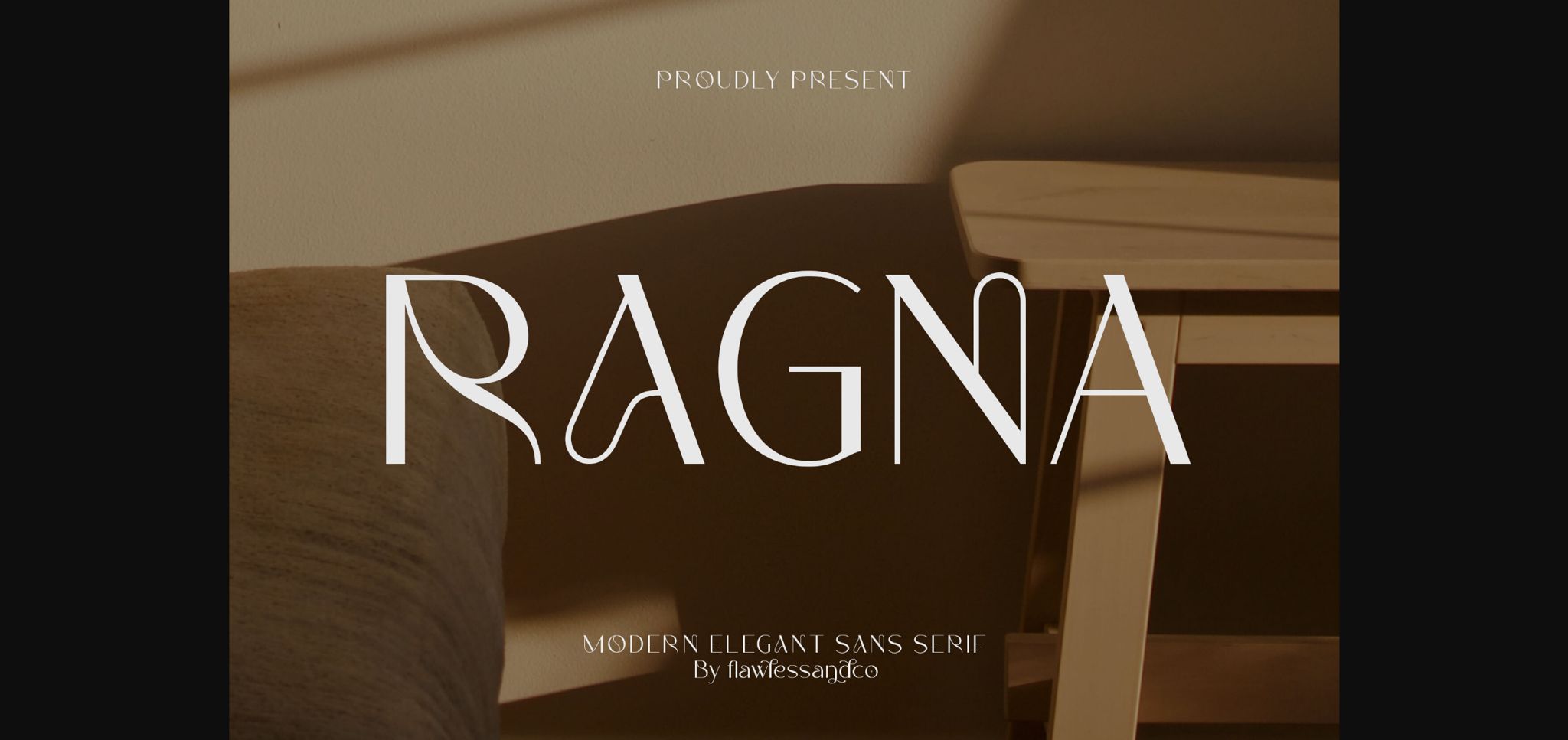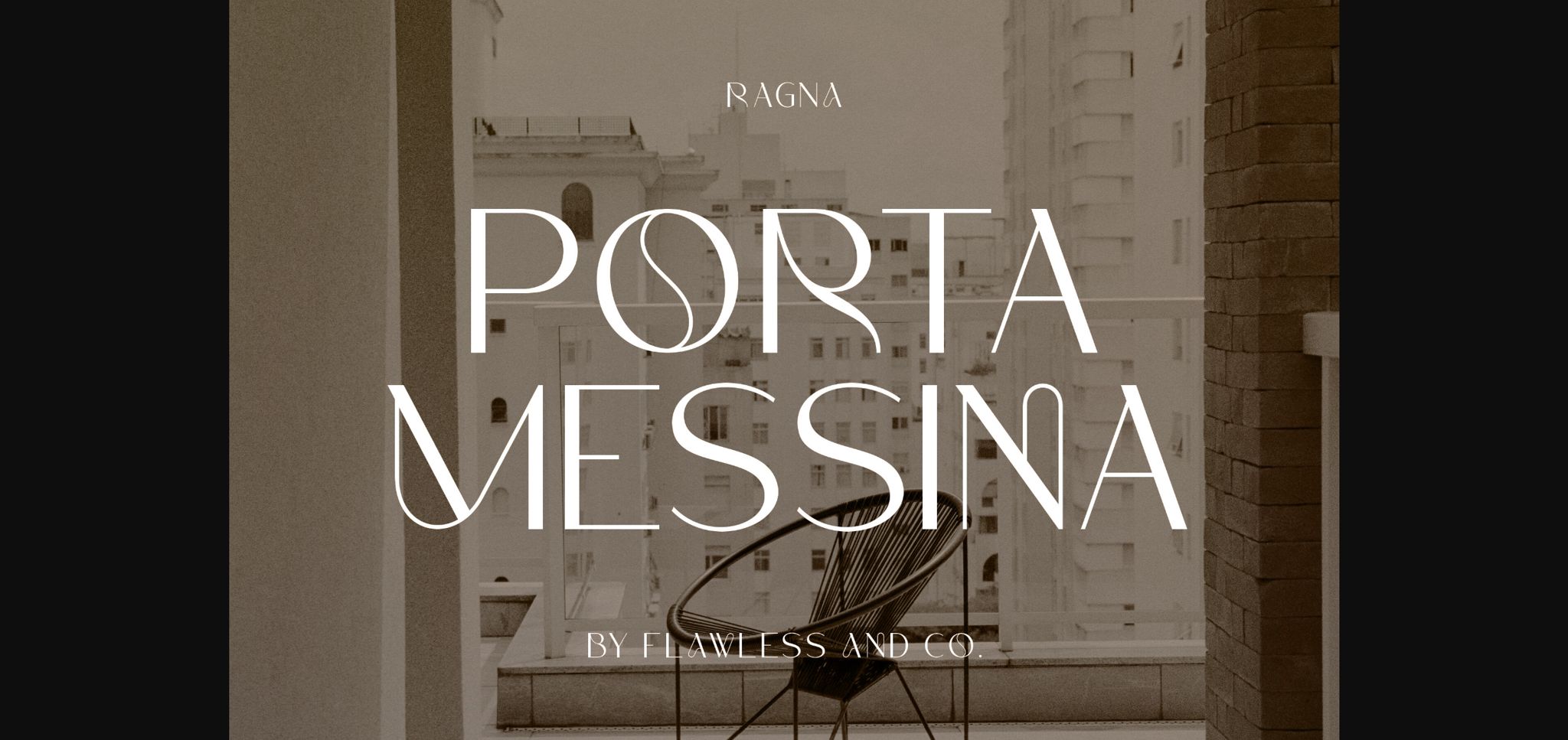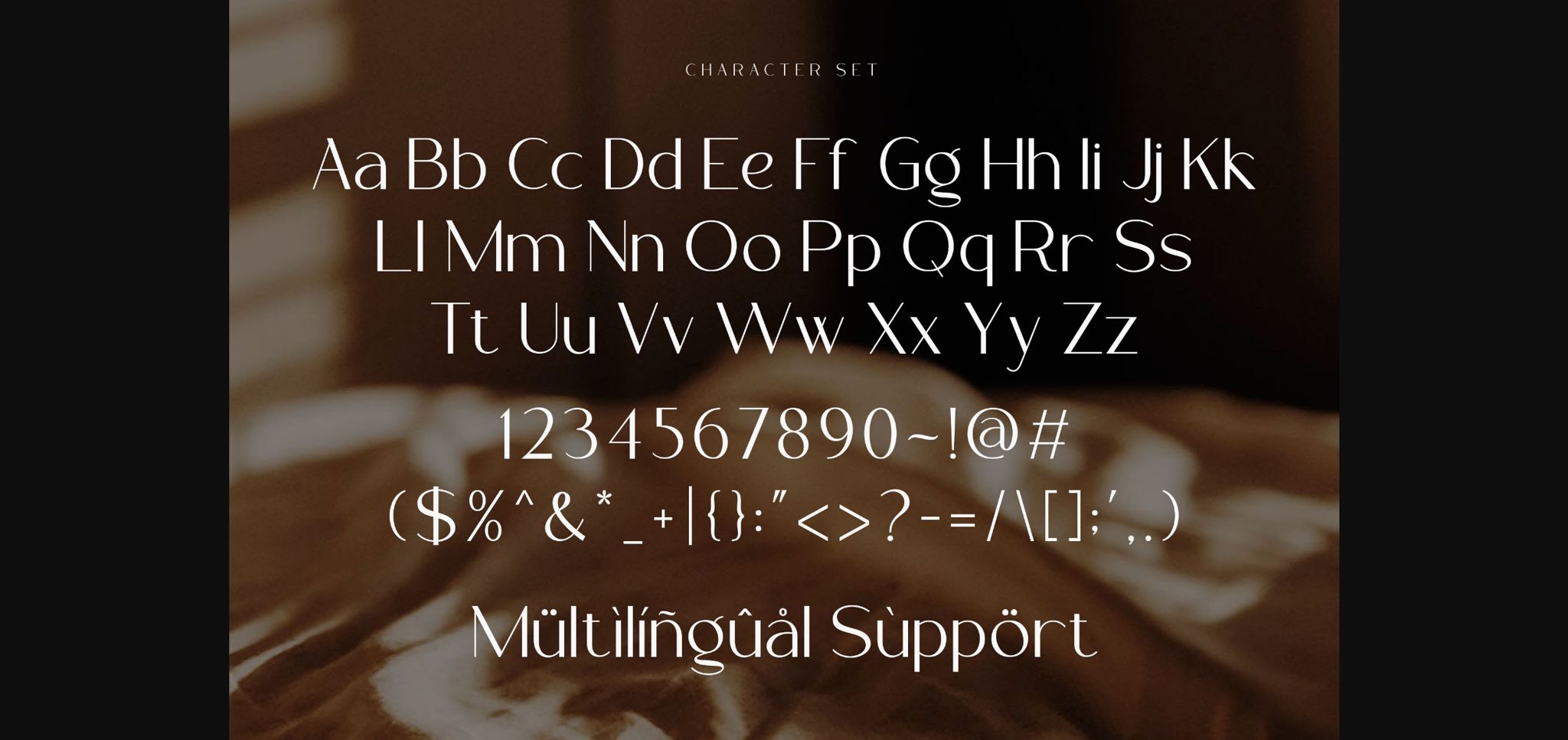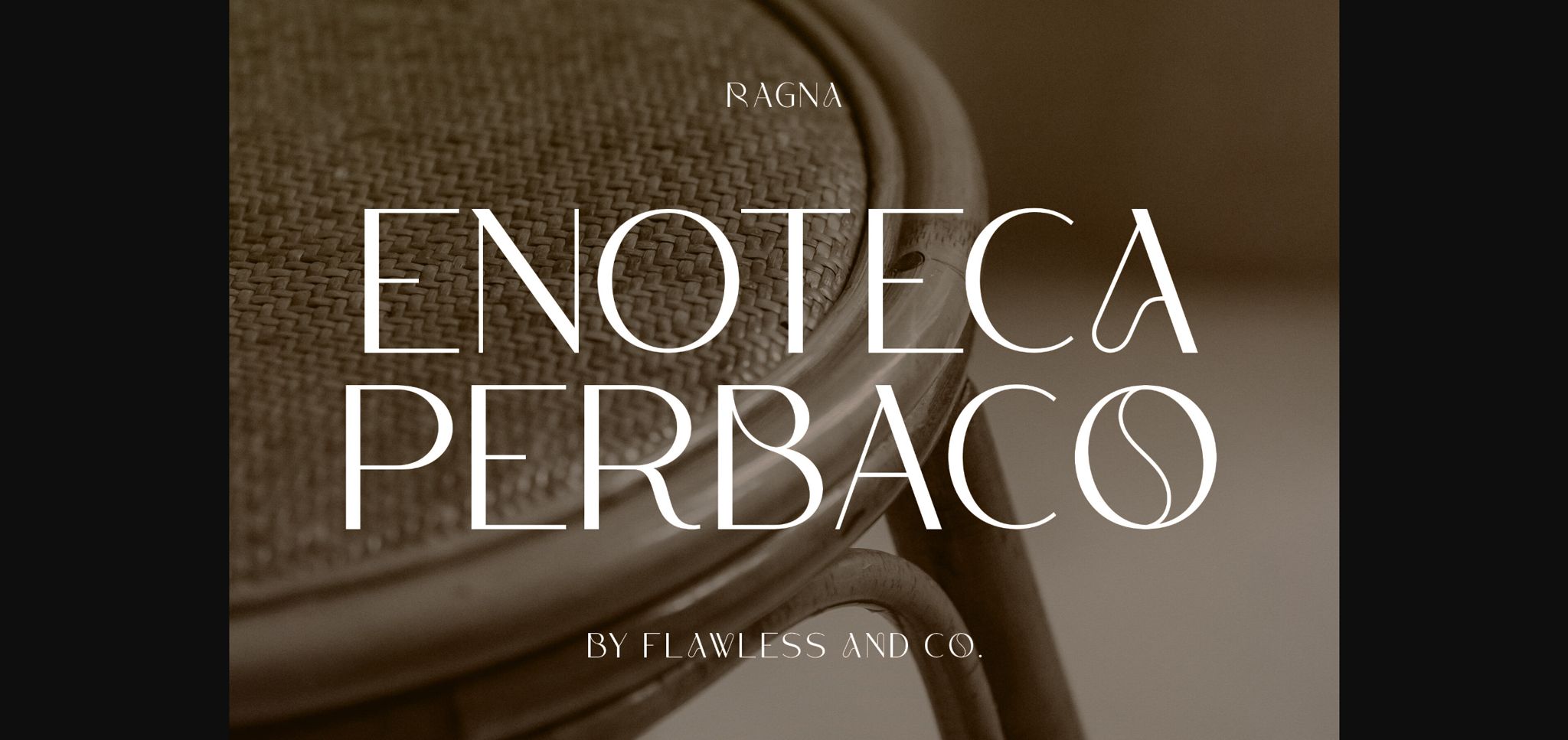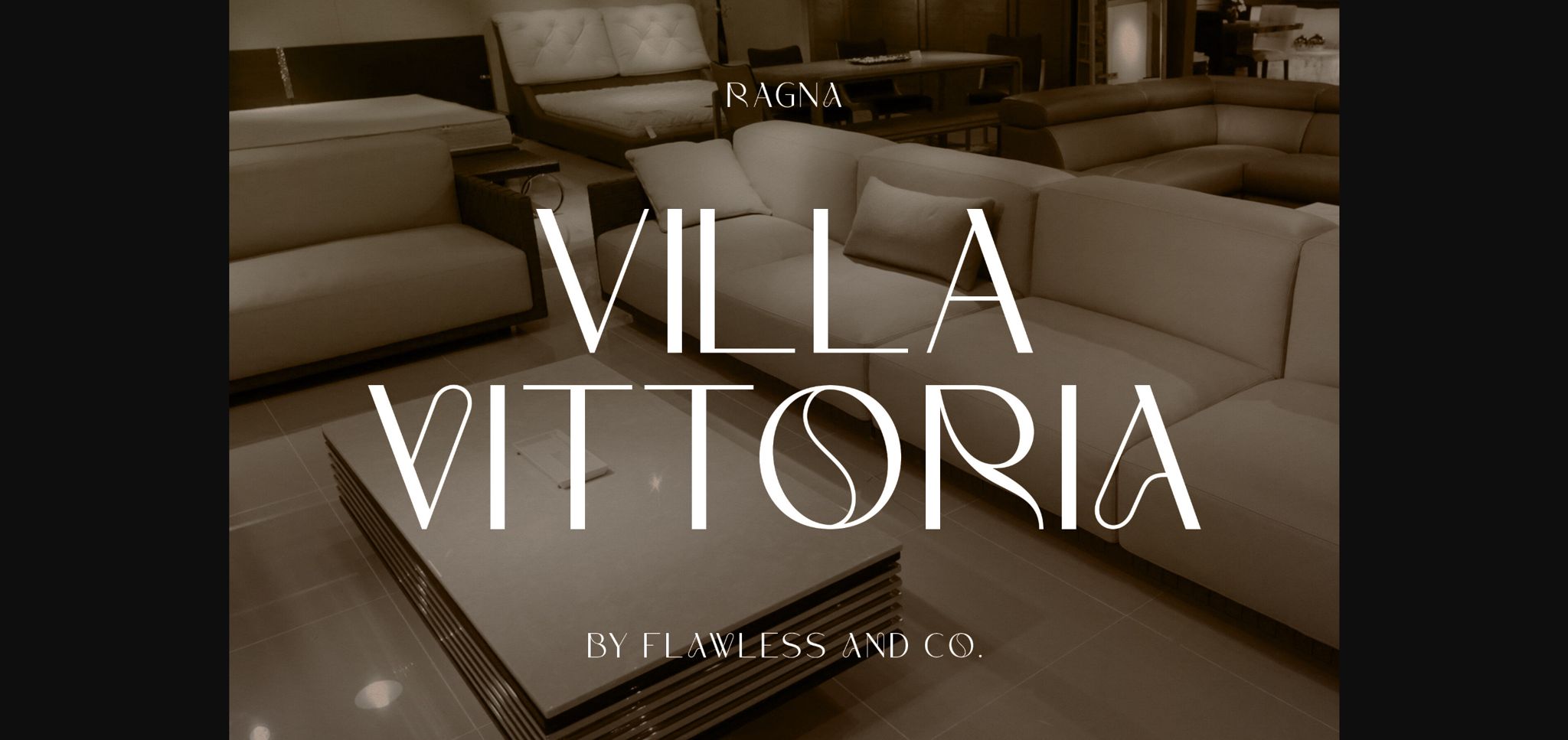
About Ragna Font
Experience the pinnacle of modern elegance with “Ragna,” a sleek and refined sans serif font that not only exudes contemporary sophistication but also offers a rich set of alternatives and ligatures to elevate your design versatility. With its clean lines, minimalist design, and exquisite detailing, “Ragna” is designed to convey refined grace and style with a touch of individuality.